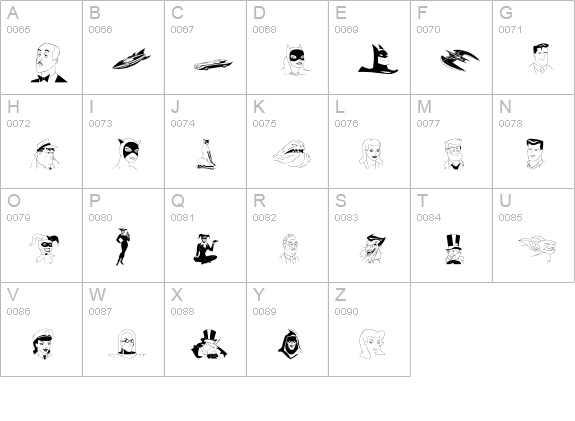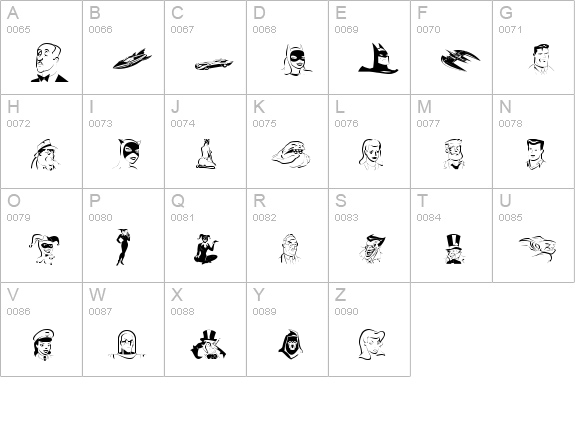
Introducing BatMan font - a sleek and powerful typeface inspired by the iconic superhero. This font exudes strength and sophistication, making it perfect for any design project that requires a bold and dynamic look. With its sharp edges and modern aesthetic, BatMan font is sure to make a statement and leave a lasting impression. Best of all, BatMan font is completely free to download at FontsMarket.com. Get your hands on this incredible font today and take your designs to the next level. Whether you're creating posters, logos, or any other type of graphic design, BatMan font will bring a touch of superhero flair to your work. Download now and unleash the power of BatMan font in your projects!